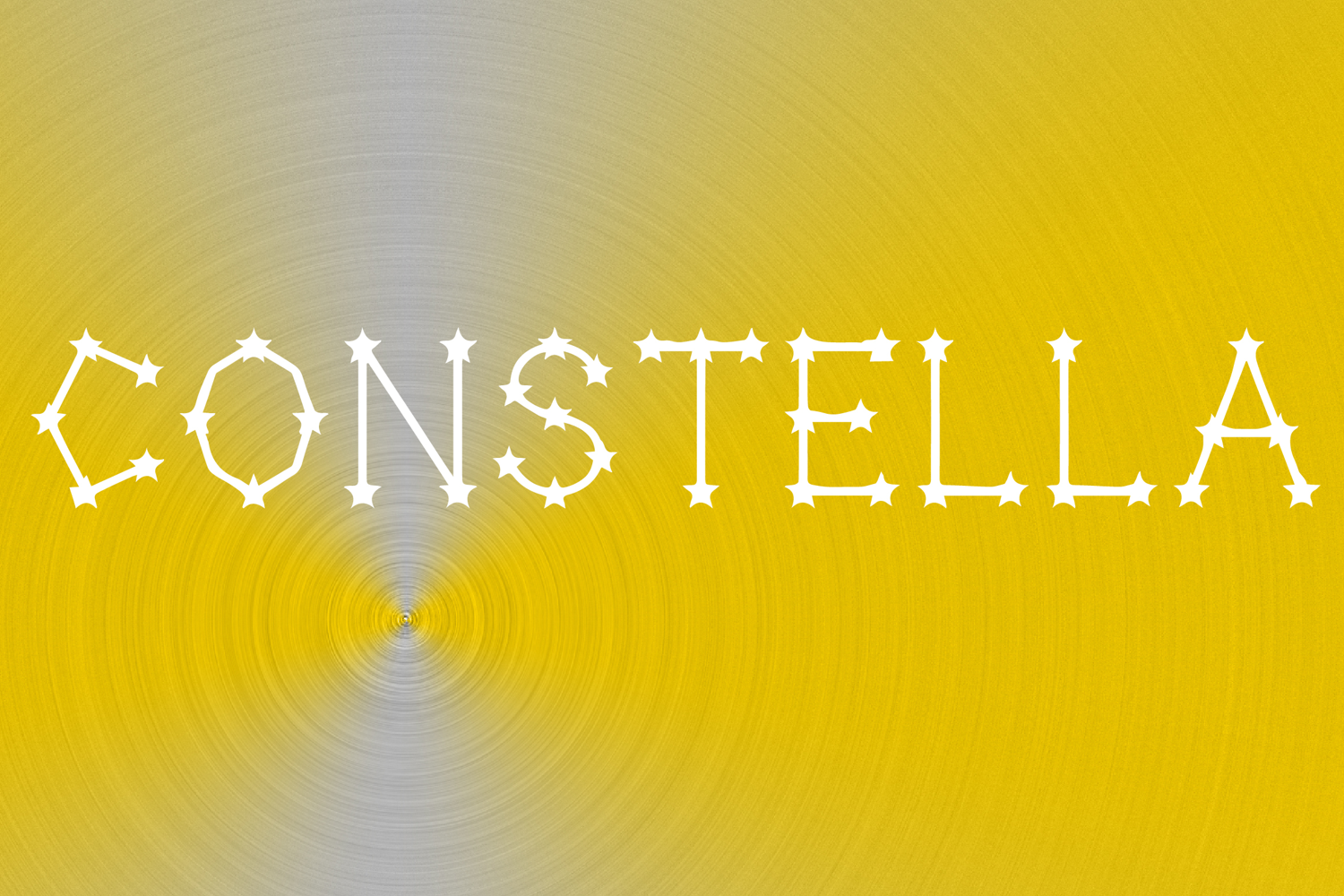
Constella
Constella is a whimsical decorative display font with a celestial-inspired style and elegant magical charm. Its uppercase letterforms feature slender strokes, star-shaped accents, and constellation-like details that create a dreamy, unique, and eye-catching look. Designed with uppercase letters A–Z and numbers 0–9, Constella is perfect for branding, posters, invitations, packaging, logos, and creative projects that need a sparkling and memorable statement.